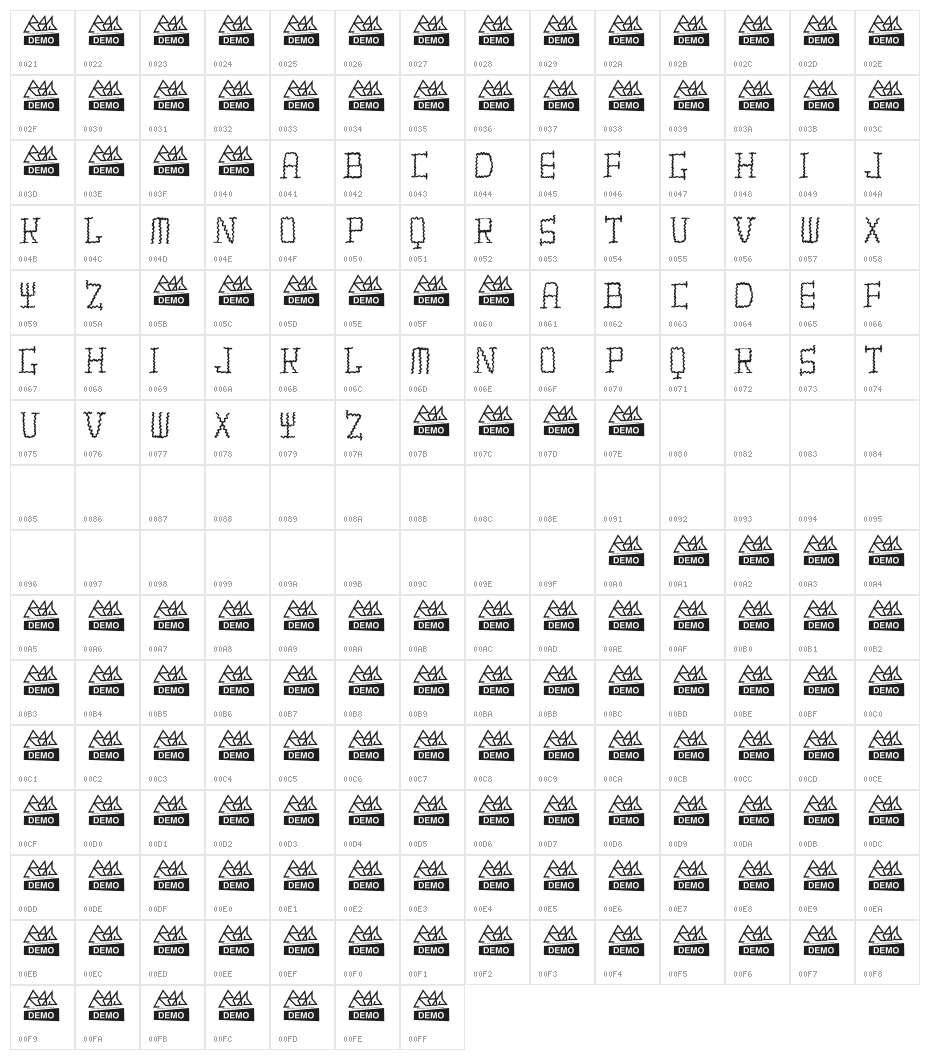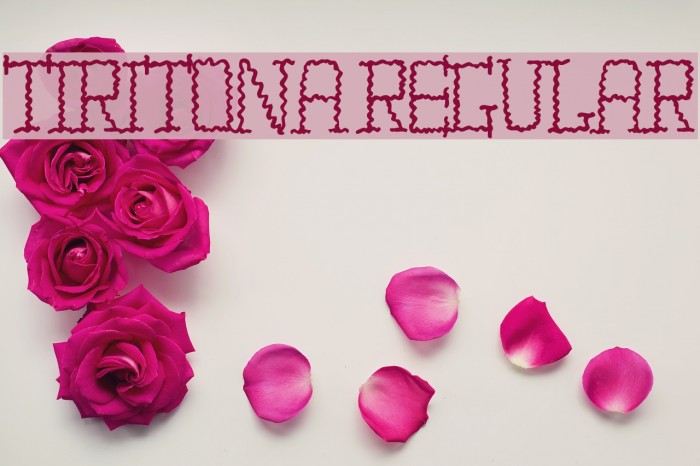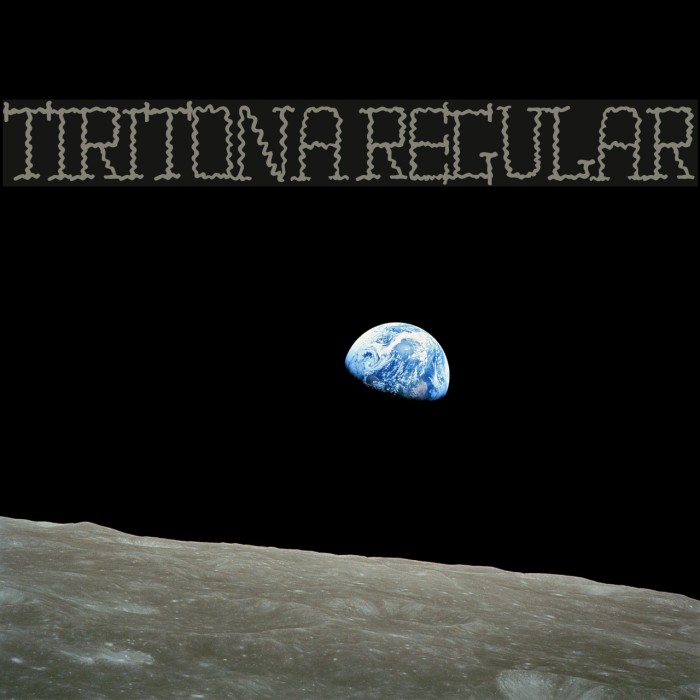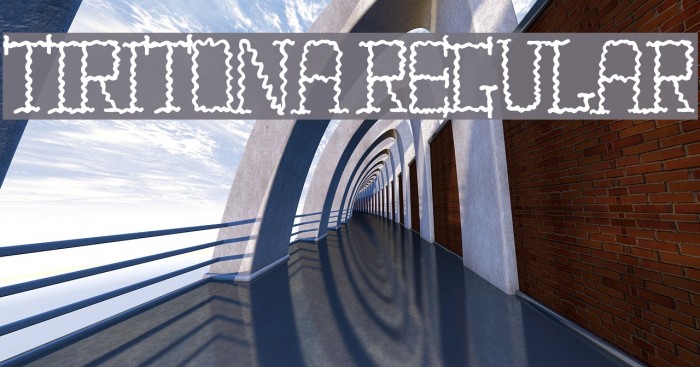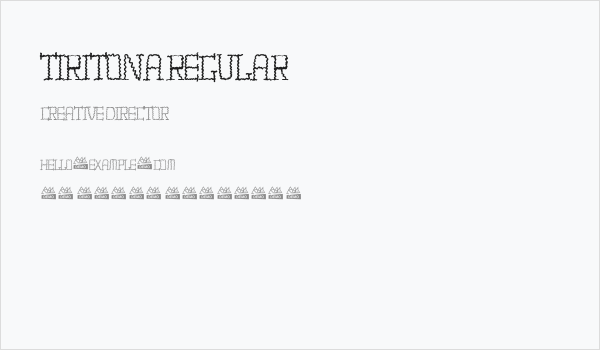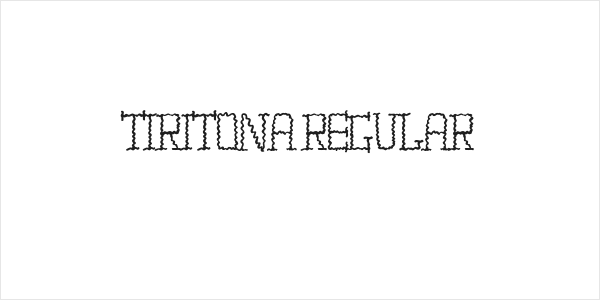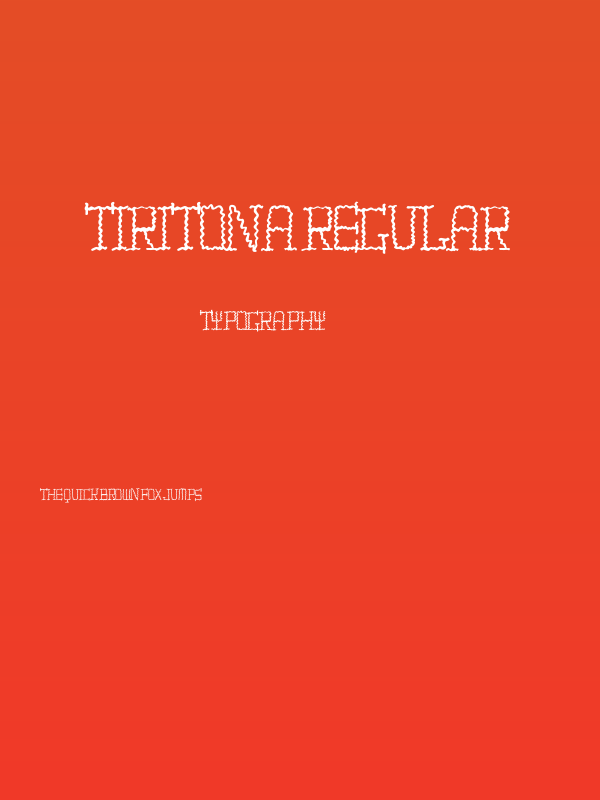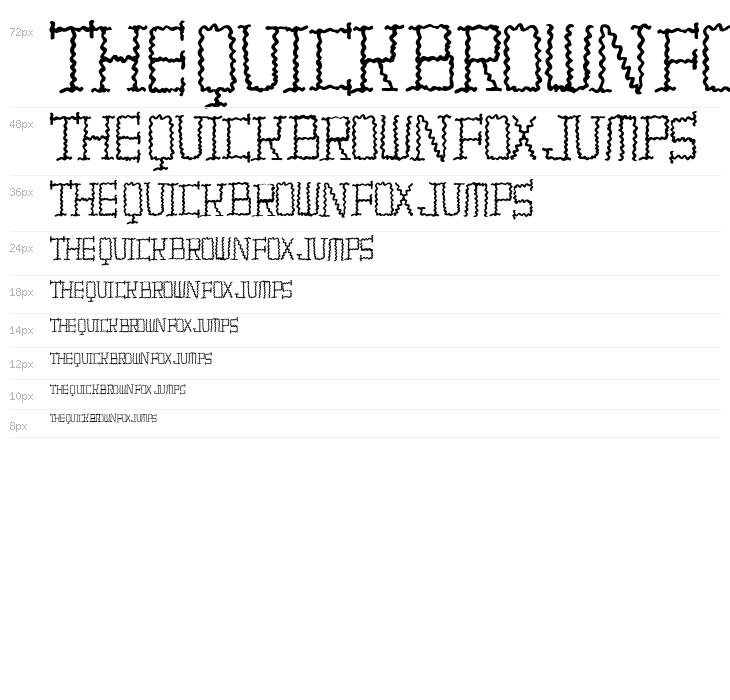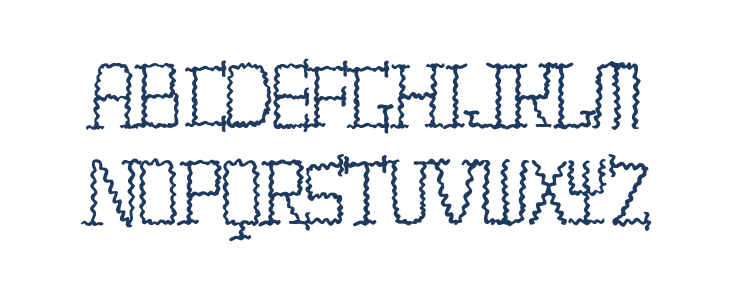
TIRITONA REGULAR Font
TIRITONA REGULAR Description
This font features a unique, decorative style with a playful and whimsical appearance. The characters are composed of interconnected, zigzagging lines that create a textured and dynamic look. The uppercase letters are bold and prominent, while the lowercase letters maintain the same intricate design. The numbers and special characters follow the same pattern, ensuring consistency across the entire set. This font's distinctive style makes it stand out, offering a creative and artistic flair.
| Proposed Projects | Ideal for creative projects such as children's book covers, playful branding, artistic posters, and unique invitations. |